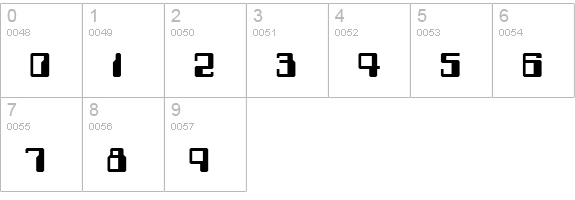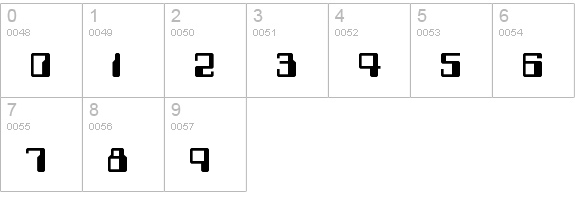
Computerfont Regular Font Details
Computerfont Regular is the standard, neutral variant in the Computerfont typeface family \xE2\x80\x94 well suited to general body text, paragraphs, and standard typographic work.
Computerfont Regular is a sleek and modern typeface that perfectly blends simplicity with sophistication. With its clean lines and sharp edges, this font is ideal for a wide range of design projects, from websites to printed materials. The versatility of Computerfont Regular makes it a go-to choice for both professional and personal use. What's even better is that Computerfont Regular is available for free download at FontsMarket.com. This means you can easily access and use this high-quality font without any cost. Whether you're a designer looking to add a fresh touch to your creations or a business owner in need of a polished look for your branding, Computerfont Regular is the perfect choice. Download it today and elevate your design projects with this stylish and effortlessly chic font.